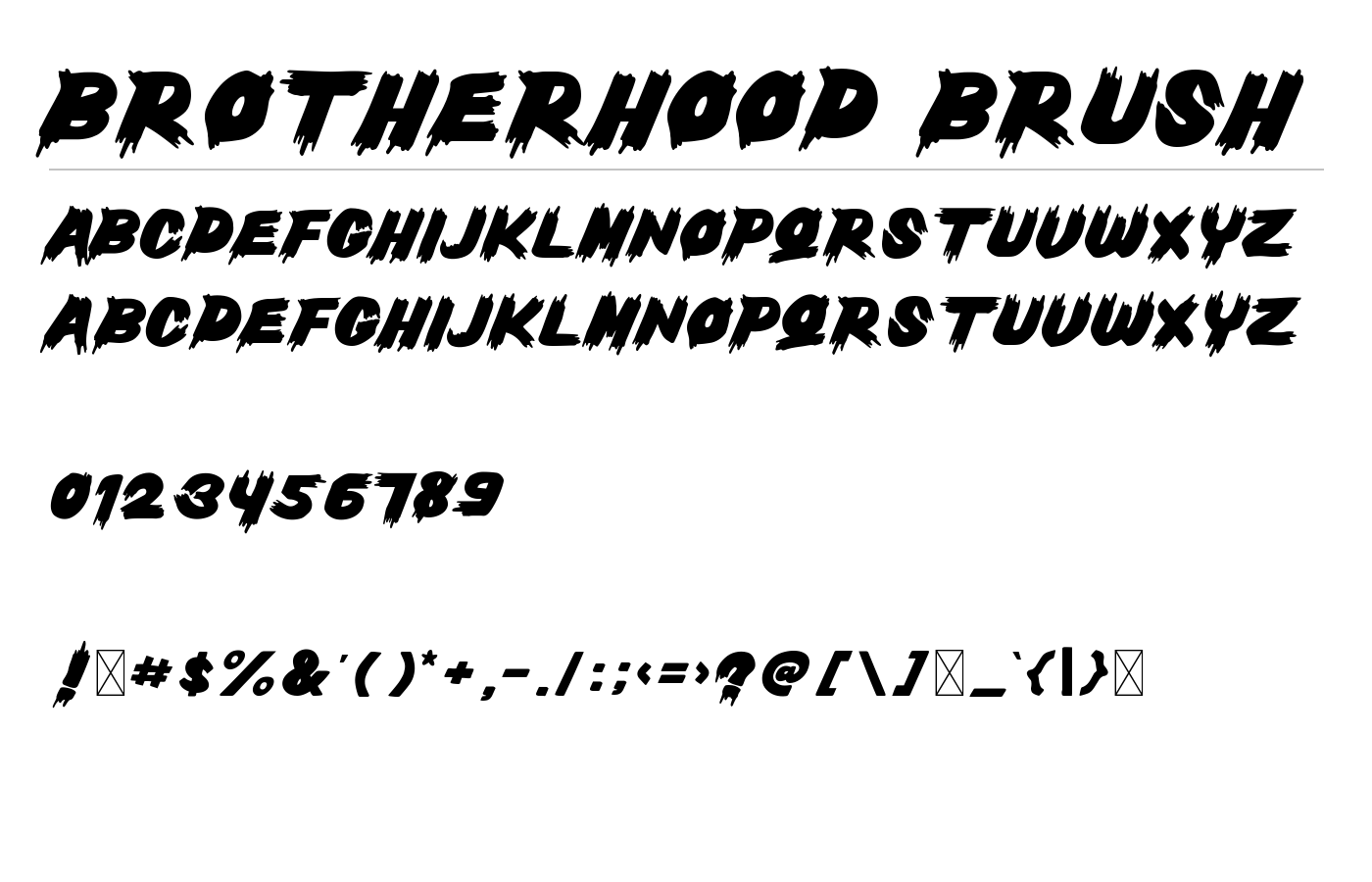
Brotherhood Font is a bold, brush-style sans serif that feels energetic and rugged, with rough edges that mimic hand-painted strokes. Its strong weight and dynamic texture make it perfect for designs seeking a casual, street-art vibe or a bold, expressive look in logos, posters, and headlines. This font captures a lively, adventurous personality that stands out with its edgy and artistic flair.
Brotherhood Font
About Brotherhood Font
| Font family | Brotherhood Font |
| Designer | Doli Harahap |